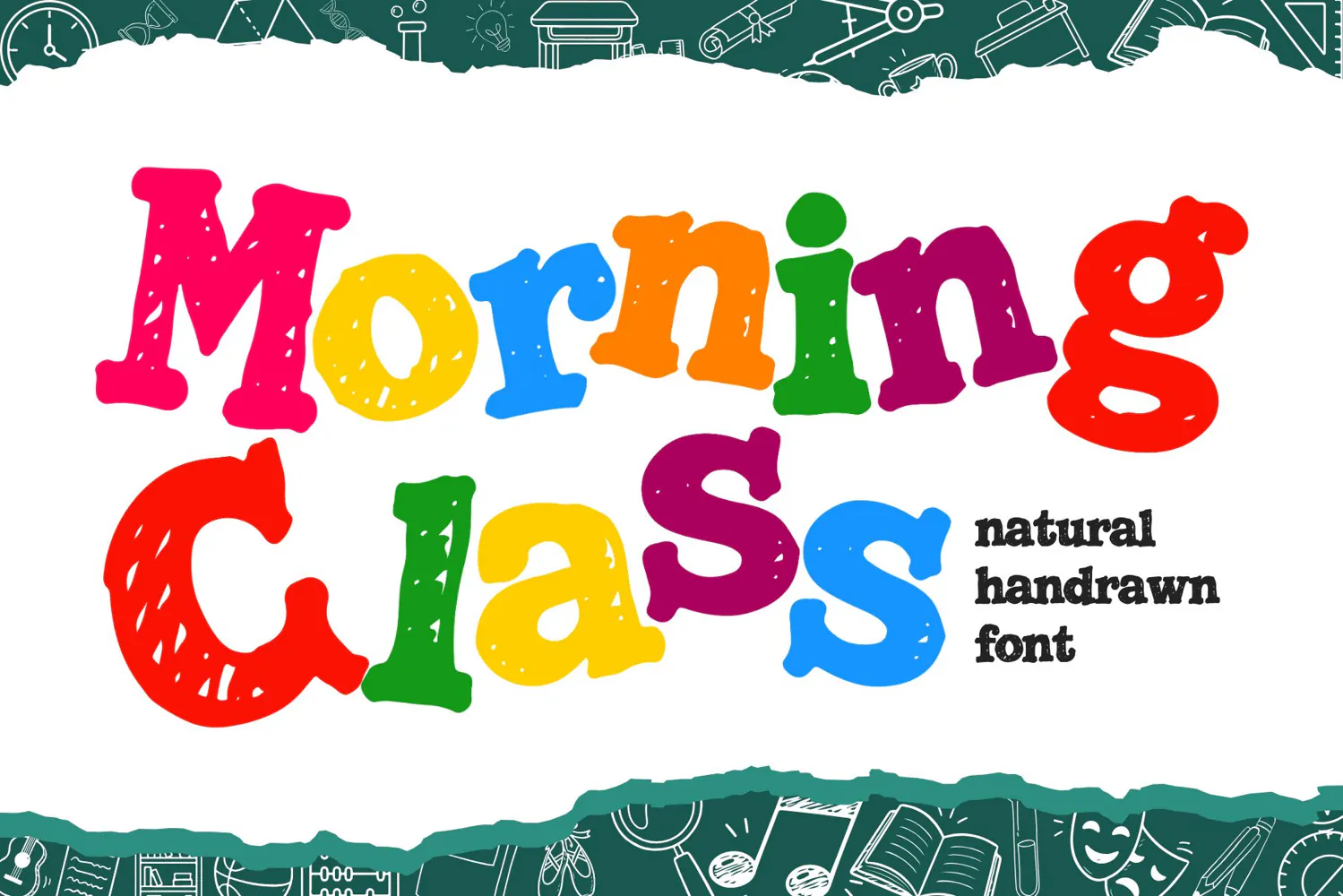
Introduce Morning Class, a playful and natural kids handdrawn font designed to bring a cheerful, friendly, and authentic handwritten vibe to your creative projects. This adorable display typeface is perfect for children's book illustrations, school projects, nursery branding, toy packaging, cute greeting cards, birthday party invitations, and fun educational materials.
Bring joy, creativity, and a touch of childlike wonder to your next design with Morning Class!